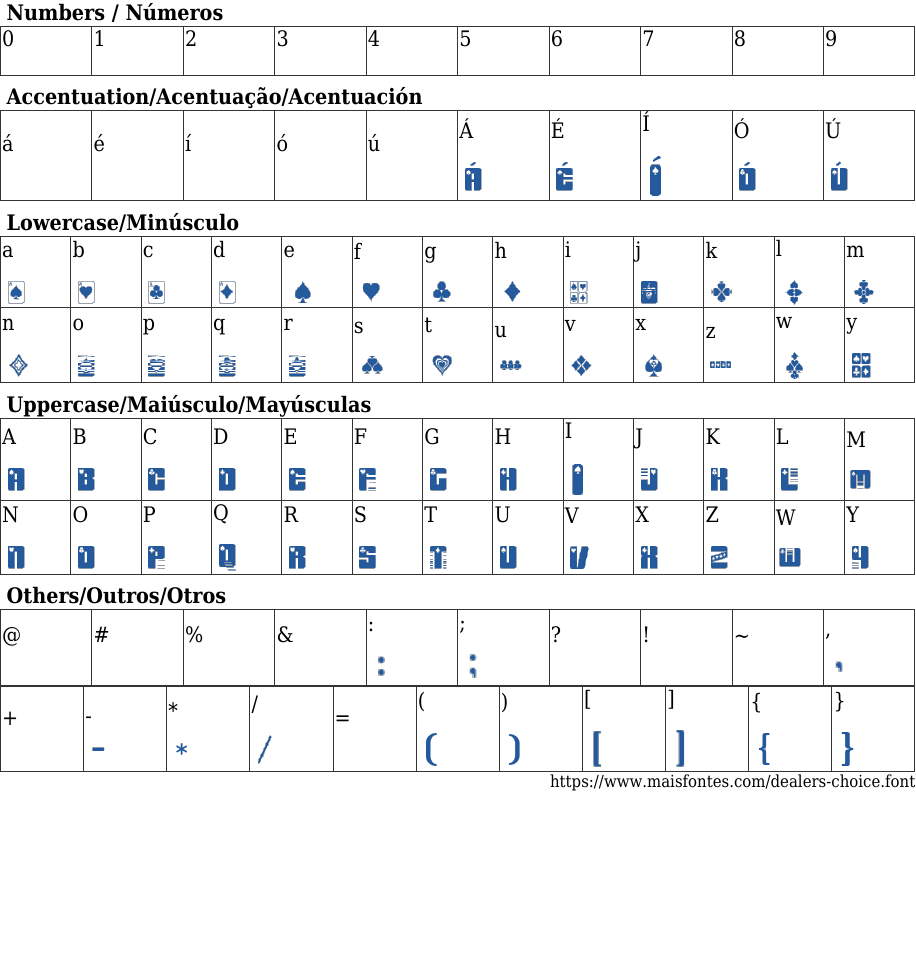
Dealers Choice Font . dealers choice font belongs to regular subfamily. Linotype game pi french cards: Playing cards, heart, diamond, club and spades including. the font is no longer available for purchase. Font created by bill bogusky. The font version is version 1.000;ps. Linotype game pi dice dominoes: dealers choice version 1.000;ps 001.000;hotconv 1.0.38 font (font family name: dealers is a development of the classic taste wood type to form solid blocked shapes, modern serifs, and with all caps based characters and slightly. — to learn more about the font and typography of the dealers choice font, simply enter the text in the field below and. information about the font dealers choice from bogusky 2, and where to download it. introducing an authentic touch based on old fashioned signage developed into the wood type feels, and it's called dealers. fonts similar to 'dealers choice':
dealers choice version 1.000;ps 001.000;hotconv 1.0.38 font (font family name: information about the font dealers choice from bogusky 2, and where to download it. Font created by bill bogusky. The font version is version 1.000;ps. Playing cards, heart, diamond, club and spades including. dealers choice font belongs to regular subfamily. — to learn more about the font and typography of the dealers choice font, simply enter the text in the field below and. dealers is a development of the classic taste wood type to form solid blocked shapes, modern serifs, and with all caps based characters and slightly. Linotype game pi dice dominoes: fonts similar to 'dealers choice':
Dealers Choice Font Linotype game pi french cards: introducing an authentic touch based on old fashioned signage developed into the wood type feels, and it's called dealers. Linotype game pi dice dominoes: the font is no longer available for purchase. Playing cards, heart, diamond, club and spades including. Linotype game pi french cards: dealers choice font belongs to regular subfamily. dealers is a development of the classic taste wood type to form solid blocked shapes, modern serifs, and with all caps based characters and slightly. Font created by bill bogusky. dealers choice version 1.000;ps 001.000;hotconv 1.0.38 font (font family name: The font version is version 1.000;ps. — to learn more about the font and typography of the dealers choice font, simply enter the text in the field below and. fonts similar to 'dealers choice': information about the font dealers choice from bogusky 2, and where to download it.
Any fonts and font colours can be used on most products. See below for Dealers Choice Font introducing an authentic touch based on old fashioned signage developed into the wood type feels, and it's called dealers. information about the font dealers choice from bogusky 2, and where to download it. dealers is a development of the classic taste wood type to form solid blocked shapes, modern serifs, and with all caps based characters and. Dealers Choice Font.